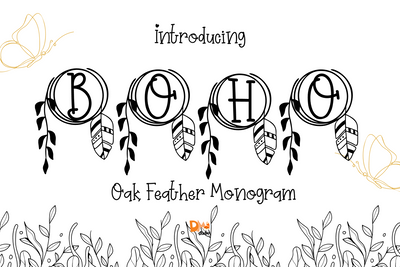
Oak Feather Monogram
Oak Feather Monogram – Serif Monogram Font with Rustic Oak Leaf & Feather Accents
Oak Feather Monogram is a refined serif monogram font featuring graceful uppercase letters adorned with a blend of oak leaves and feather details. Inspired by woodland textures and boho elegance, this font brings organic sophistication to personalized initials, rustic branding, and wedding designs.
Oak & Feather Details: Hand-drawn elements blend strength and softness for a unique botanical identity.
Classic Serif Base: Clean serif lines provide structure, readability, and timeless appeal.
Monogram Ready: Perfect for elegant initials, logos, product labels, and invitation designs.
Ideal For: Nature-themed branding, wedding monograms, Cricut crafts, personalized gifts, woodland events, and seasonal packaging.